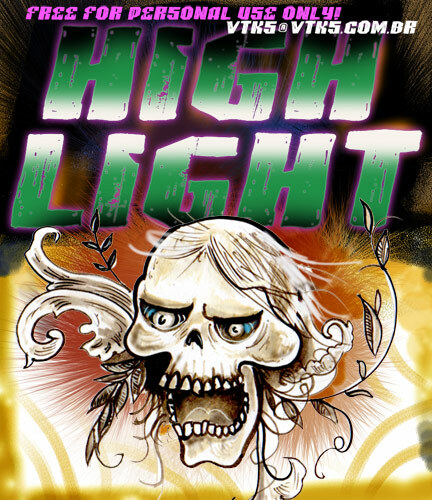
VTKS Highlight 2, designed by Douglas Vitkauskas, is a free eroded caps display font with a tough, hand-cut look. Heavy, angular letters lean forward slightly and form a compact, forceful silhouette. Scrapes, chips, and uneven edges run across the strokes like worn paint.
It speaks directly to skate, punk, and streetwear audiences. The battered surface suits gig posters, T-shirt graphics, and action-sports branding, linking each use through the same rough, DIY attitude.